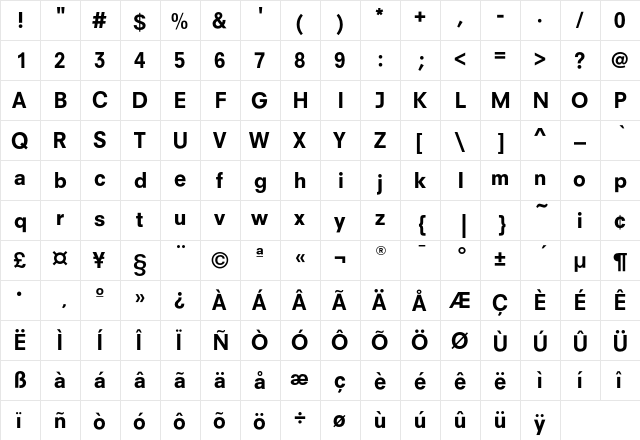
DigiGroteskSEF-SemiBold Regular
Design Context for DigiGroteskSEF-SemiBold Typeface
DigiGroteskSEF-SemiBold has the quiet confidence of well-executed sans-serif typography: versatile, unobtrusive, and dependable at any size. Its bold stroke weight gives it real presence on the page.
Font Pairing: Works well alongside a characterful serif or display font that can carry the expressive load while DigiGroteskSEF-SemiBold handles the functional copy.
Pro Tip: Pair DigiGroteskSEF-SemiBold with a display or serif font for headlines — its neutral character makes it an excellent supporting player in complex typographic systems.